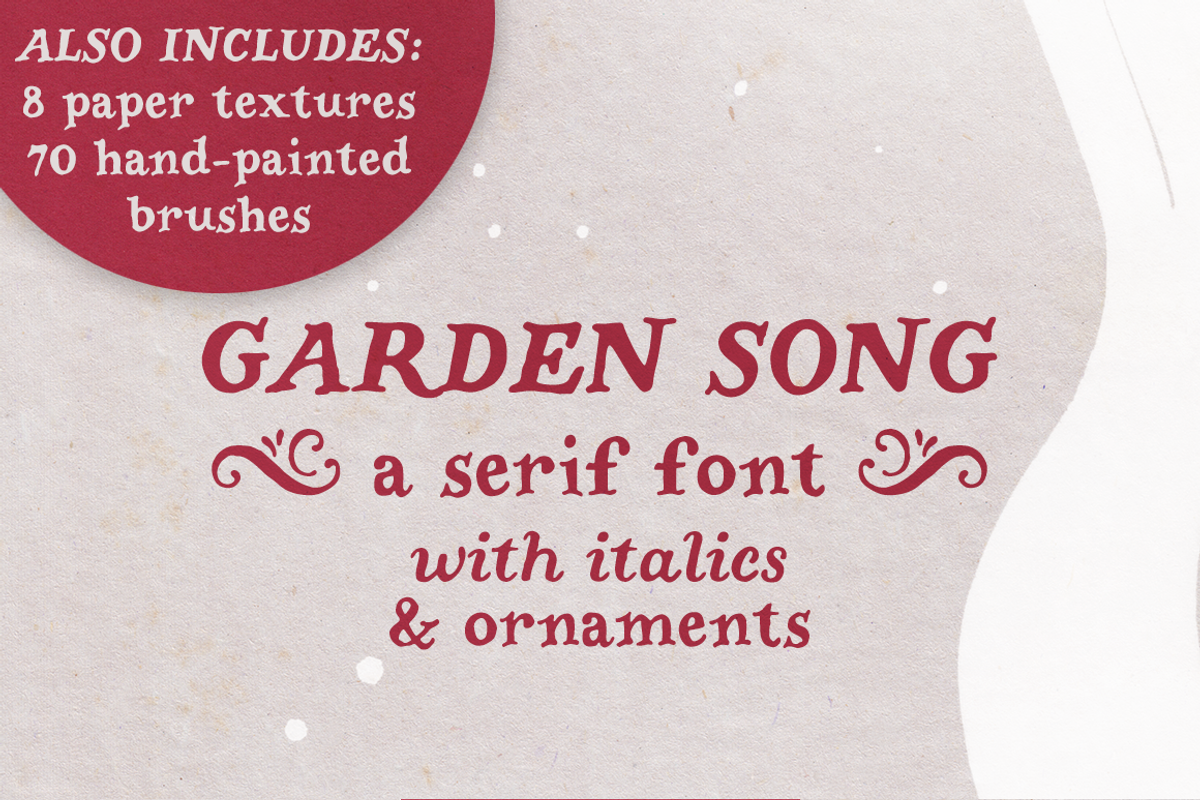
Garden Song serif font and extras Free Download
Garden Song Serif Font and Extras Free Download
Please note, to use this font for commercial purposes, you must purchase the full version. Garden Song is a charming serif font that brings elegance and vintage appeal to your designs. With its timeless letterforms and delicate style, this font is perfect for logos, branding, invitations, and any project that requires a refined, classic touch. The included extras further enhance your designs with additional elements like decorative flourishes, ideal for creating unique and artistic compositions. Whether you're designing for a luxury brand, a creative event, or a vintage-themed project, Garden Song adds beauty and sophistication to your work. Test it out and enjoy free download access for personal use. Experience the timeless elegance of Garden Song Serif Font and Extras Free Download before purchasing the commercial license. Add a graceful, vintage-inspired touch to your designs with Garden Song.